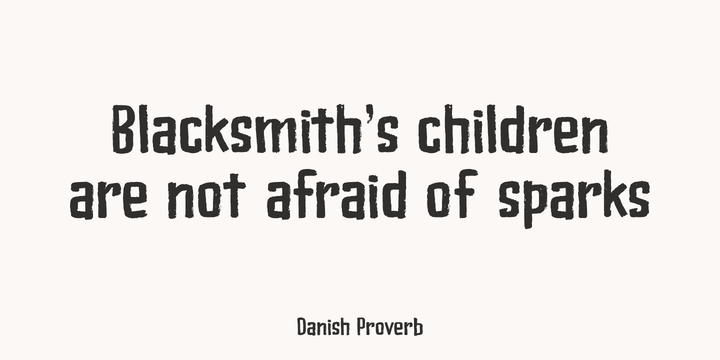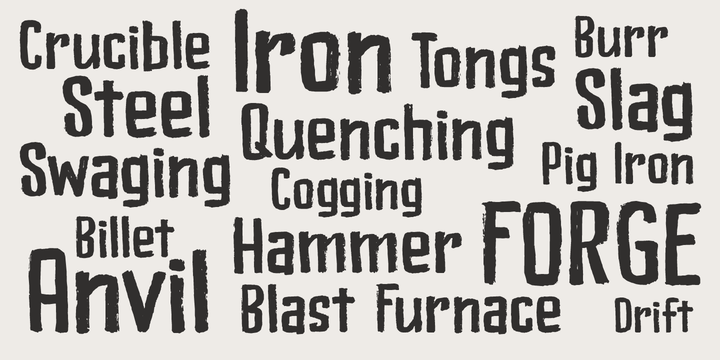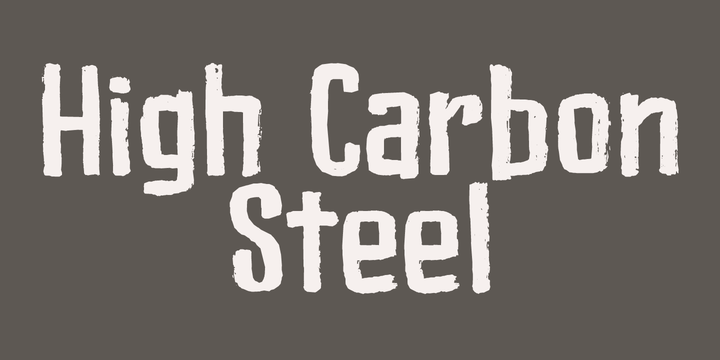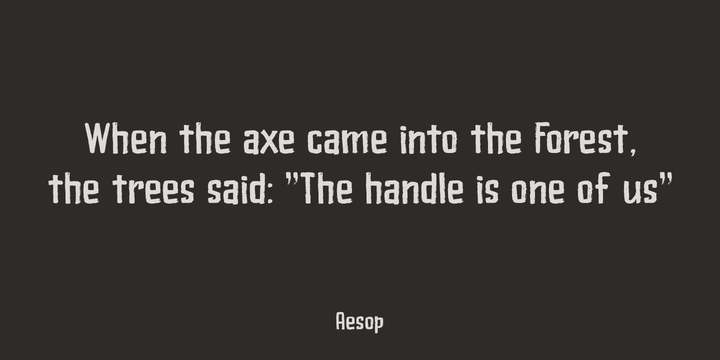
I have always had a keen interest in forging; I used to be a silversmith, and I love working with metal.
Some time ago I forged my first axe (a skeggøx or bearded axe), sharpened it and fitted it with a handmade ash handle.
It isnt perfect, but it is my first ever forged axe and Im pretty proud of it.
All of this went through my head when I started drawing the glyphs for this font.
And to be honest, I couldnt find a more suitable name for it! Bladesmith is a handmade font, forged in fire (haha).
It was actually made with an old sharpie. It is a rough and ready font, quite suited for headlines, book covers and posters.